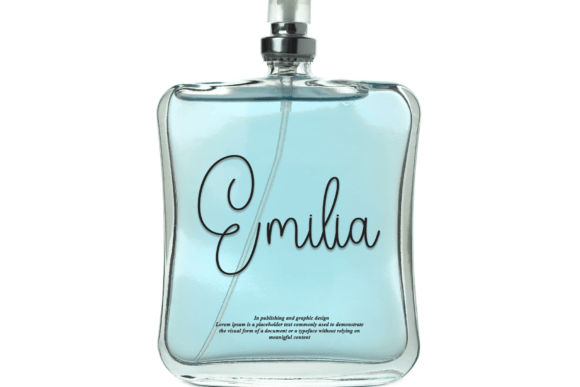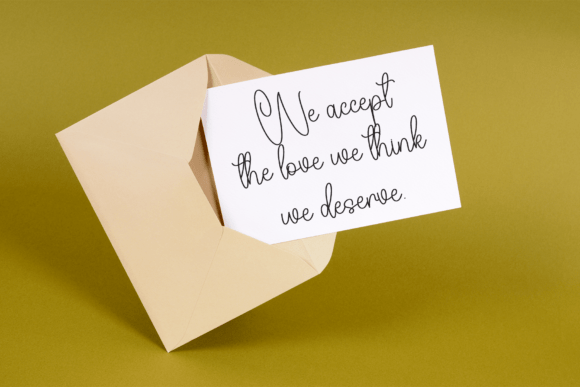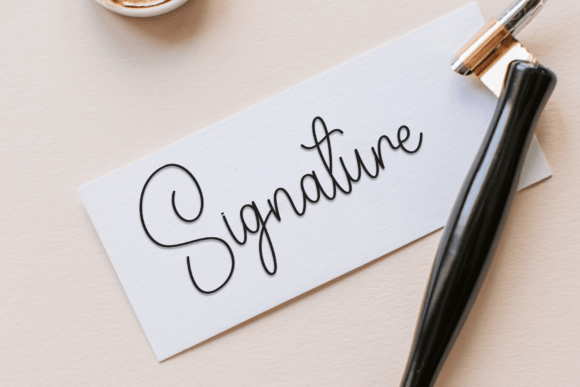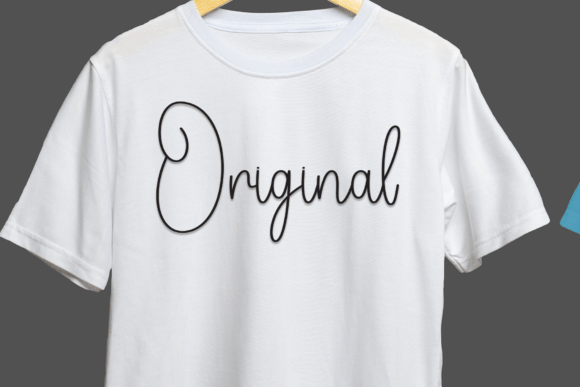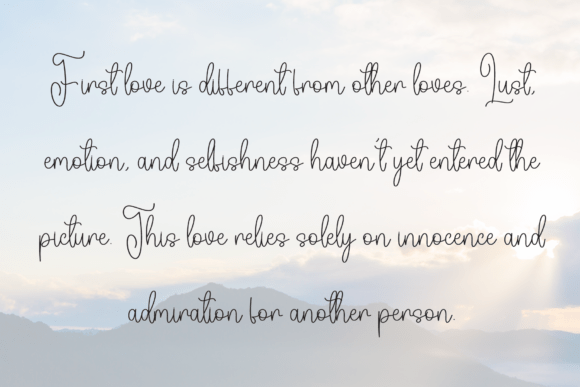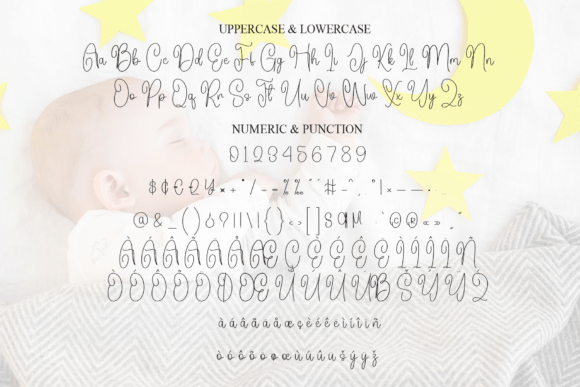
Baby Dreaming Font: Elevate Your Designs with Elegance and Sophistication
In the world of typography, few fonts manage to capture the essence of elegance and modern charm as effectively as the Baby Dreaming Font. This stylish script font has been meticulously designed to bring a touch of refinement and sophistication to various design projects, making it a versatile choice for designers and crafters alike. Whether you’re working on a logo, invitation, packaging, or social media graphics, Baby Dreaming Font is sure to elevate your designs to new heights.
The Beauty of Hand-Drawn Calligraphy with a Modern Twist
Baby Dreaming Font is inspired by the beauty of hand-drawn calligraphy, but with a modern twist that sets it apart from traditional script fonts. Its graceful strokes, fluid curves, and carefully crafted letterforms work in harmony to create a visually stunning font that exudes elegance and sophistication. The font’s natural flow and polished details make it perfect for designs that require a high level of refinement, such as luxury brand logos, wedding invitations, and high-end product packaging.
Key Features of Baby Dreaming Font
• Stylish Script Font: Baby Dreaming Font is a beautifully designed script font that features elegant strokes and fluid curves.
• Elegant and Modern: The font combines traditional calligraphy with a modern twist, making it perfect for designs that require a touch of sophistication.
• Versatile: Baby Dreaming Font is ideal for a wide range of design projects, including logos, invitations, packaging, and social media graphics.
• Refined and Sophisticated: The font’s polished details and natural flow make it perfect for designs that require a high level of refinement.
Use Cases for Baby Dreaming Font
Baby Dreaming Font is a versatile font that can be used in a variety of design projects. Here are some of the most popular use cases:
• Logos: Create a lasting impression with a custom logo that features the elegant and sophisticated Baby Dreaming Font.
• Invitations: Make your invitations stand out with the beautiful and refined Baby Dreaming Font, perfect for weddings, baby showers, and other special occasions.
• Packaging: Elevate your product packaging with the sophisticated and elegant Baby Dreaming Font, perfect for luxury brands and high-end products.
• Social Media Graphics: Create stunning social media graphics that showcase your brand’s personality and style with the versatile Baby Dreaming Font.
Why Choose Baby Dreaming Font?
With so many fonts available, why choose Baby Dreaming Font? Here are just a few reasons why designers and crafters love this stylish script font:
• Unique and Eye-Catching: Baby Dreaming Font is a unique and eye-catching font that will make your designs stand out from the crowd.
• Elegant and Sophisticated: The font’s elegant and sophisticated design makes it perfect for designs that require a high level of refinement.
• Versatile: Baby Dreaming Font is a versatile font that can be used in a wide range of design projects.
In conclusion, Baby Dreaming Font is a stylish script font that exudes elegance and contemporary charm. Its graceful strokes, fluid curves, and carefully crafted letterforms make it perfect for designs that require a high level of refinement. With its versatility and visual appeal, Baby Dreaming Font is a must-have for designers and crafters looking to elevate their designs to new heights. Whether you’re working on a logo, invitation, packaging, or social media graphics, Baby Dreaming Font is sure to deliver both style and sophistication.